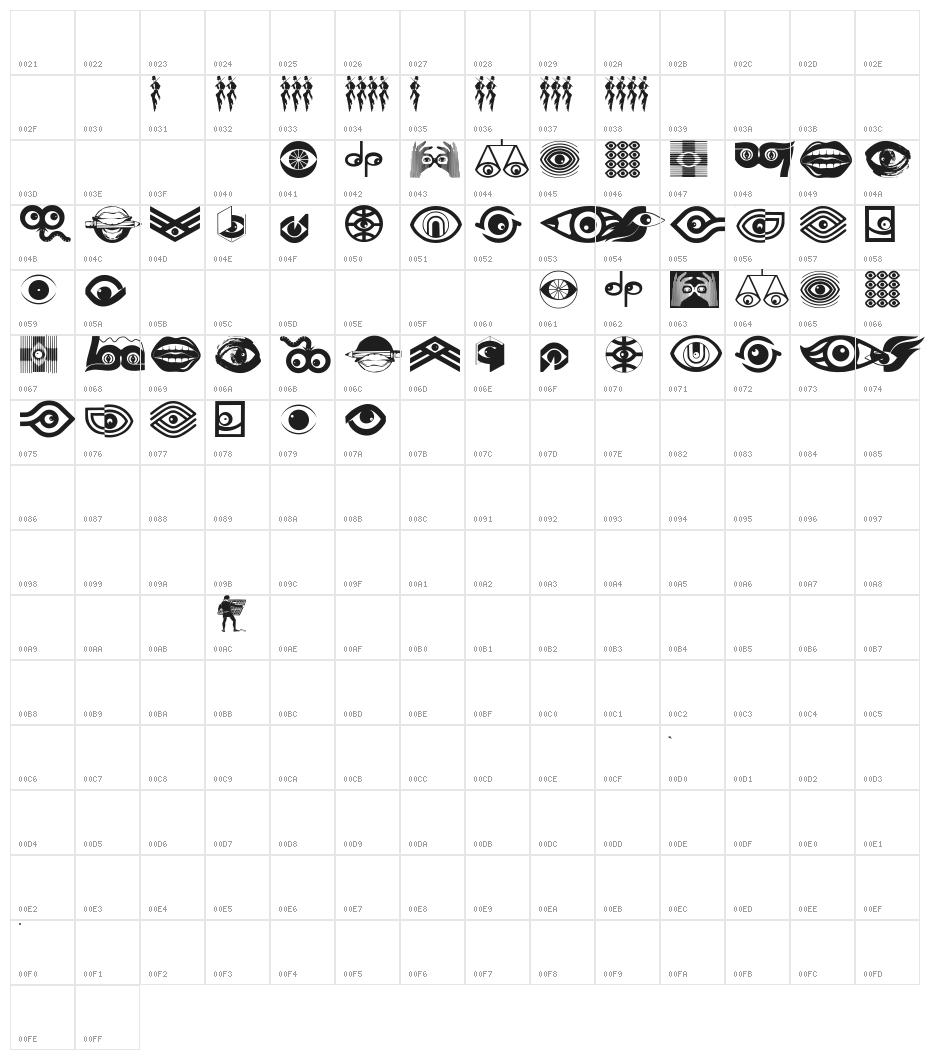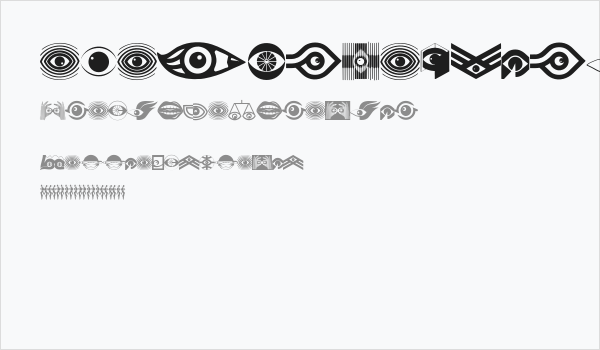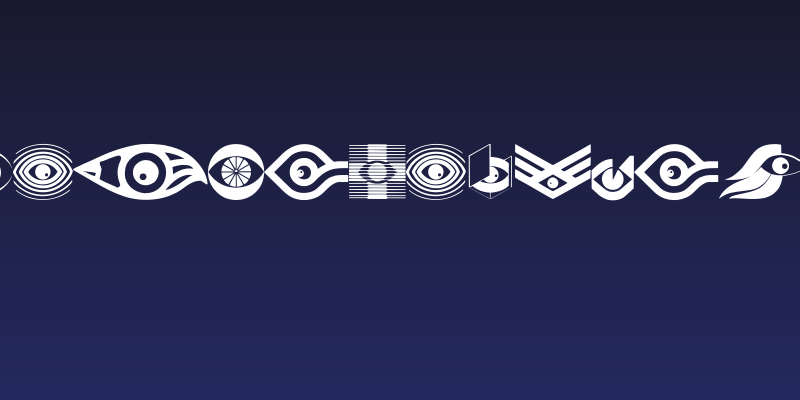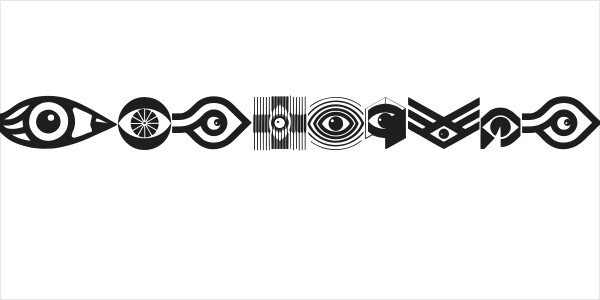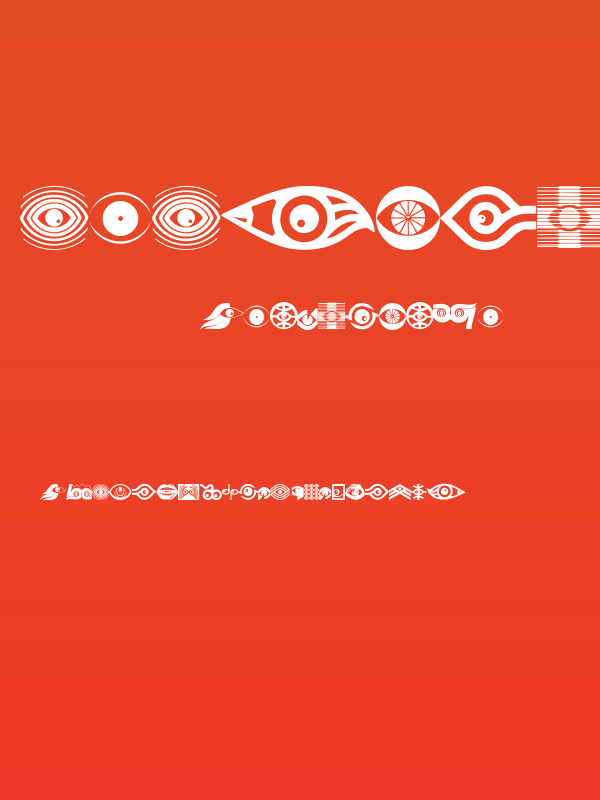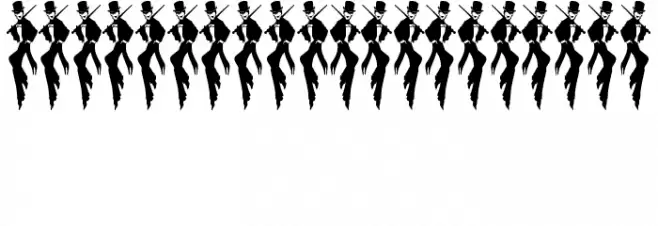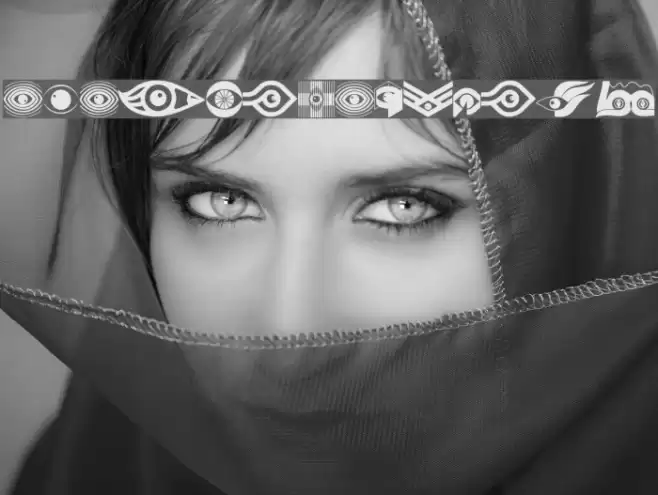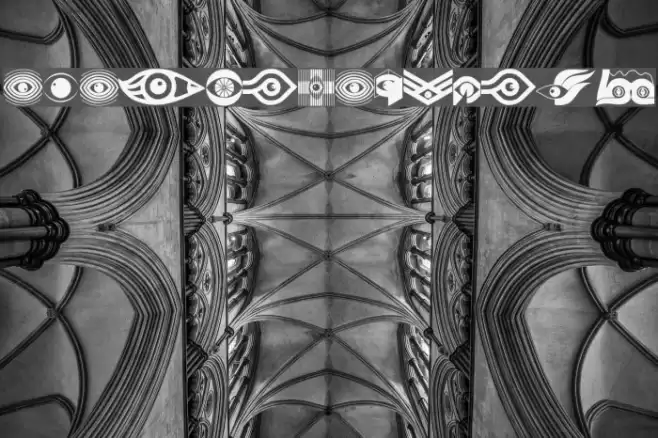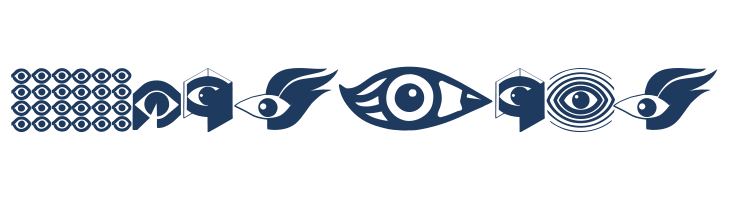
EyesAugenMouth Font
This is a decorative and highly stylized font that incorporates intricate designs resembling eyes, mouths, and abstract shapes. Each character is a unique artwork, blending geometric and organic elements to create a visually striking effect. The font is more of an artistic representation than a traditional typeface, with each symbol conveying a sense of movement and expression. The characters are bold and detailed, making them suitable for creative and avant-garde projects where visual impact is paramount.
| Use Case | Logos, Art projects, Posters |
| Proposed Projects | Ideal for artistic posters, album covers, and creative branding projects that require a unique and expressive visual style. |